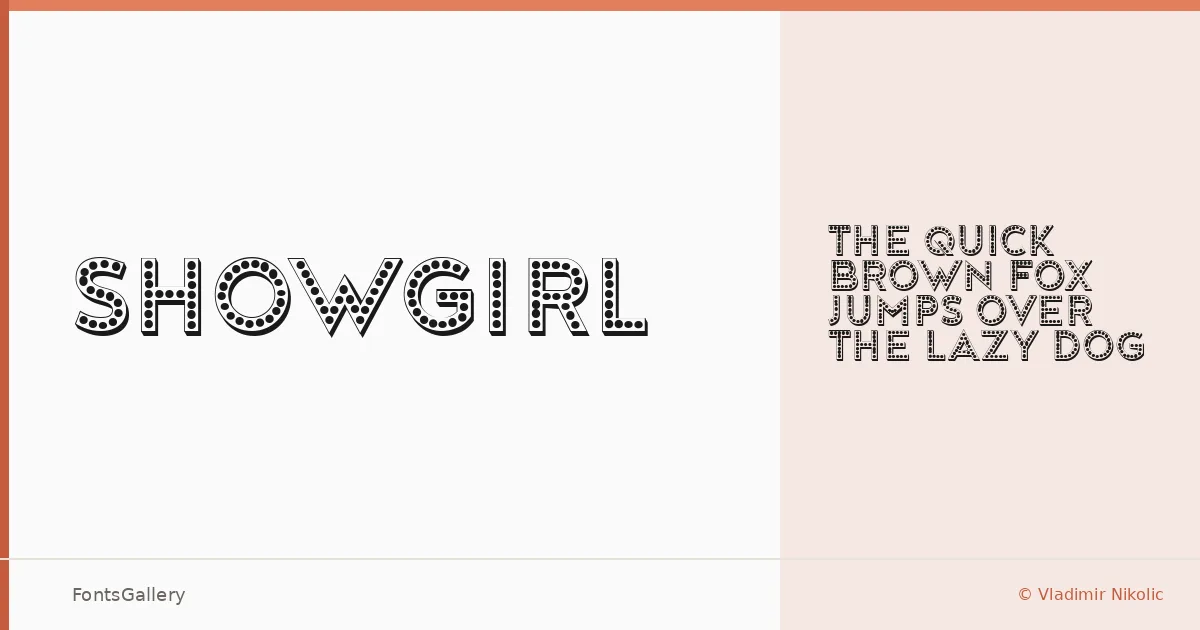
About Showgirl Font
There is something unapologetically theatrical about this face — a bold, vintage swagger that feels pulled from old vaudeville signage or a hand-lettered marquee. It is the work of Vladimir Nikolic, and it arrives as a single Regular cut with a personality large enough to fill a room.
Sitting squarely in the display category, Showgirl carries a mood that is at once classic and playful — the kind of letterforms that lean into their own weight without tipping into parody. The forms have a vintage confidence, built for contexts where restraint is beside the point. With one style in the family, every decision rests on the character of that single cut, which is no disadvantage when the cut is this resolved. It ships as a TTF file.
Headlines, posters, logos, signage, and T-shirt graphics are the natural territory here — anywhere the type needs to carry visual authority at a glance rather than sustain reading across paragraphs. For body copy or supporting text, it pairs well with clean contrasting companions such as Helvetica, Josefin Sans, or Asap; if you want something with more editorial warmth alongside it, Canela or ABC Arizona provide a good counterweight to the display energy.